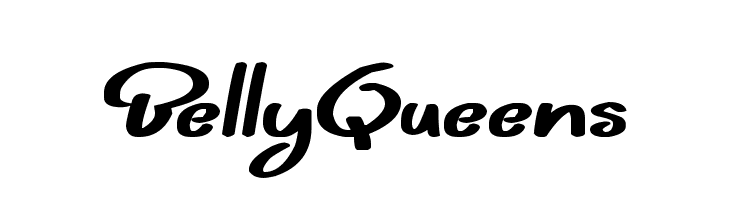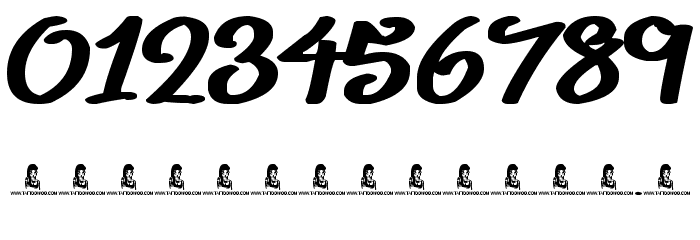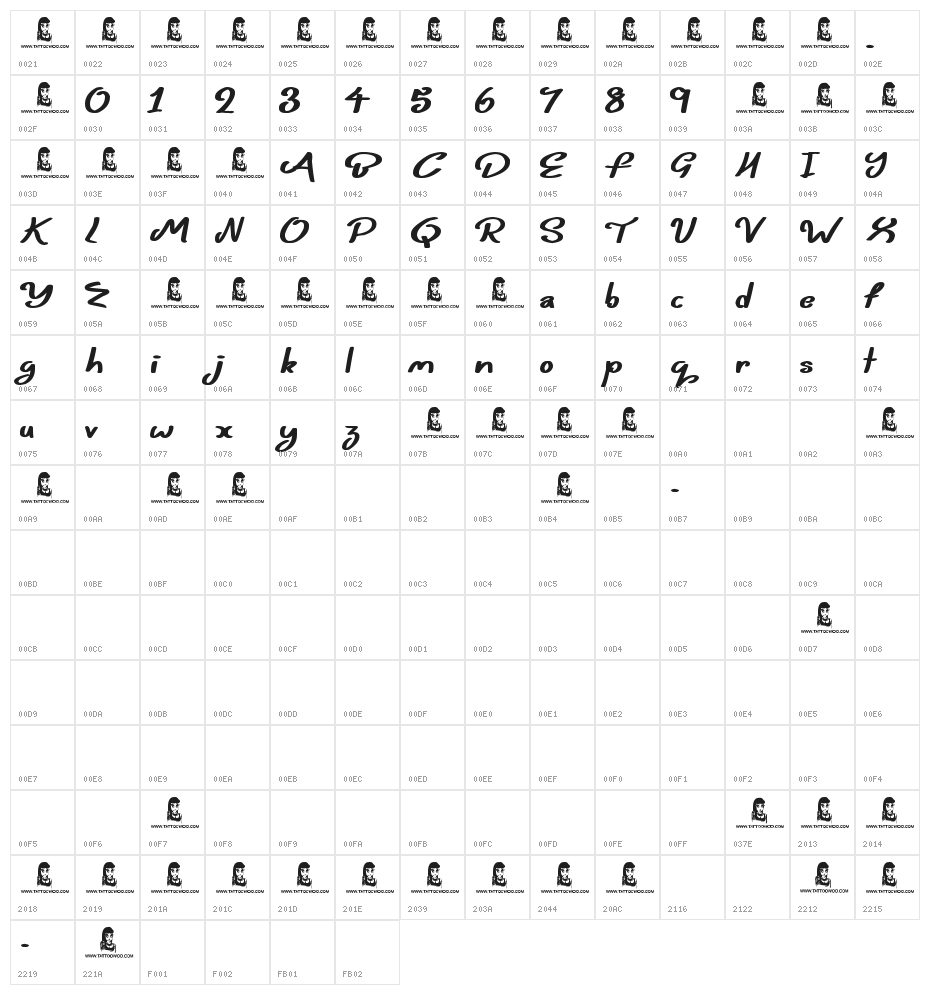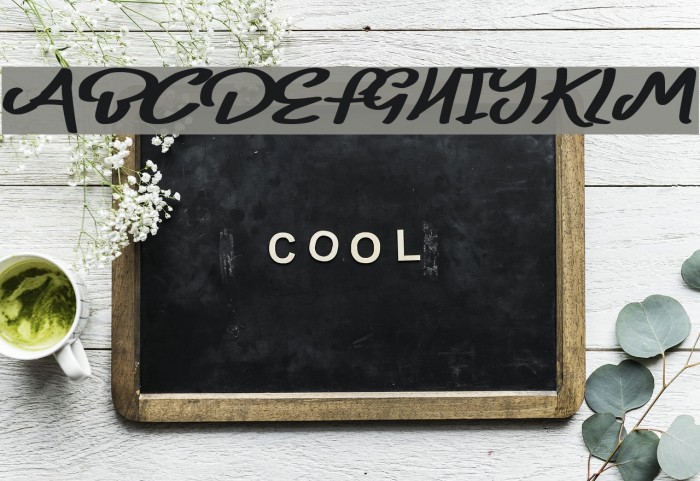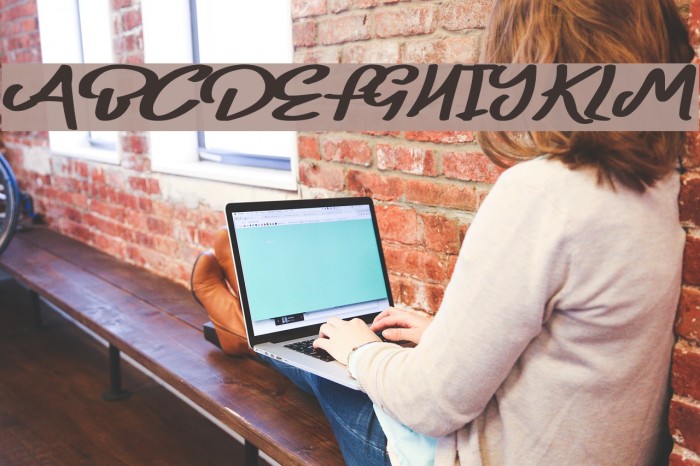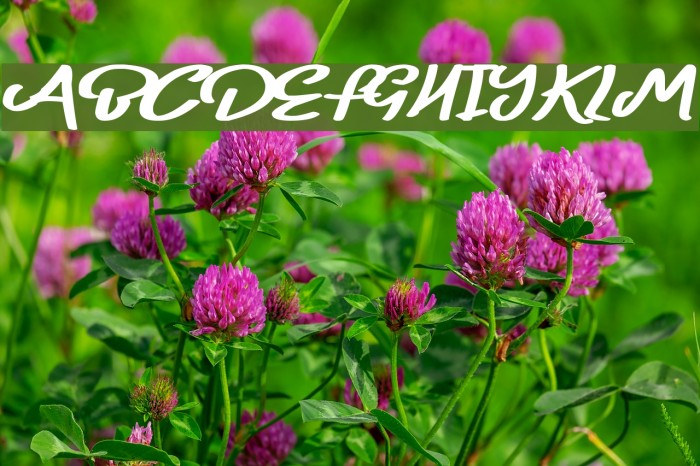
Belly Queens Font
Belly Queens Description
This font features a bold and expressive script style, characterized by its fluid and dynamic strokes. The uppercase letters exhibit a sense of movement and flair, with each character seamlessly connecting to the next. The lowercase letters maintain a consistent flow, enhancing readability while retaining a playful and artistic touch. The numerals are bold and clear, matching the overall aesthetic of the font. Special characters are designed with the same attention to detail, ensuring they blend harmoniously with the rest of the typeface. This font's energetic and lively appearance makes it suitable for a variety of creative applications.
| Proposed Projects | Ideal for branding, invitations, posters, and creative projects that require a lively and artistic touch. |